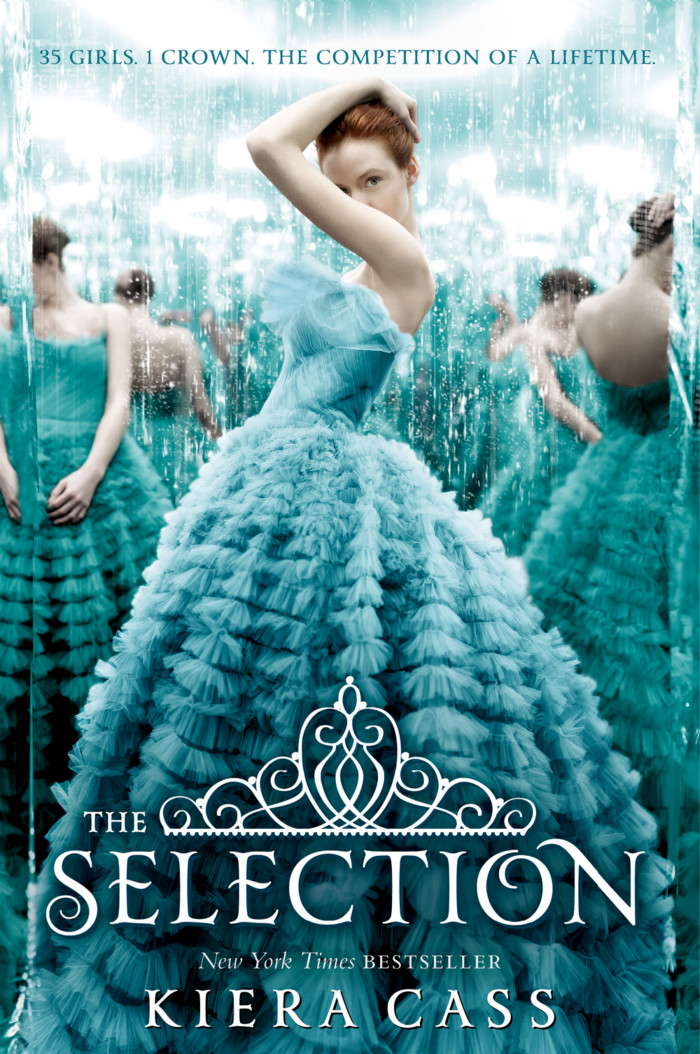
The Selection (Novel) Font
BookThe Selection is a young adult dystopian romance novel by Kiera Cass. It is the first book in a series of the same name, and it was published in 2012. The protagonist, America Singer, is a rebellious young woman who is chosen to participate in the Selection to win the heart of the prince and become the next princess.
The book's title is written in Yana font on the cover. Yana, a sophisticated calligraphic font created by Laura Worthington, comes in normal, bold, and italic styles. It also features two sets of swash capitals, each of which comes in standard sizes, small caps, and mid-sized petite caps, making them perfect for adding lovely, appropriately proportioned flourishes to the middle or end of wordmarks.